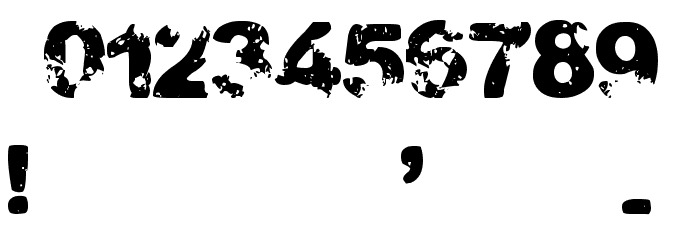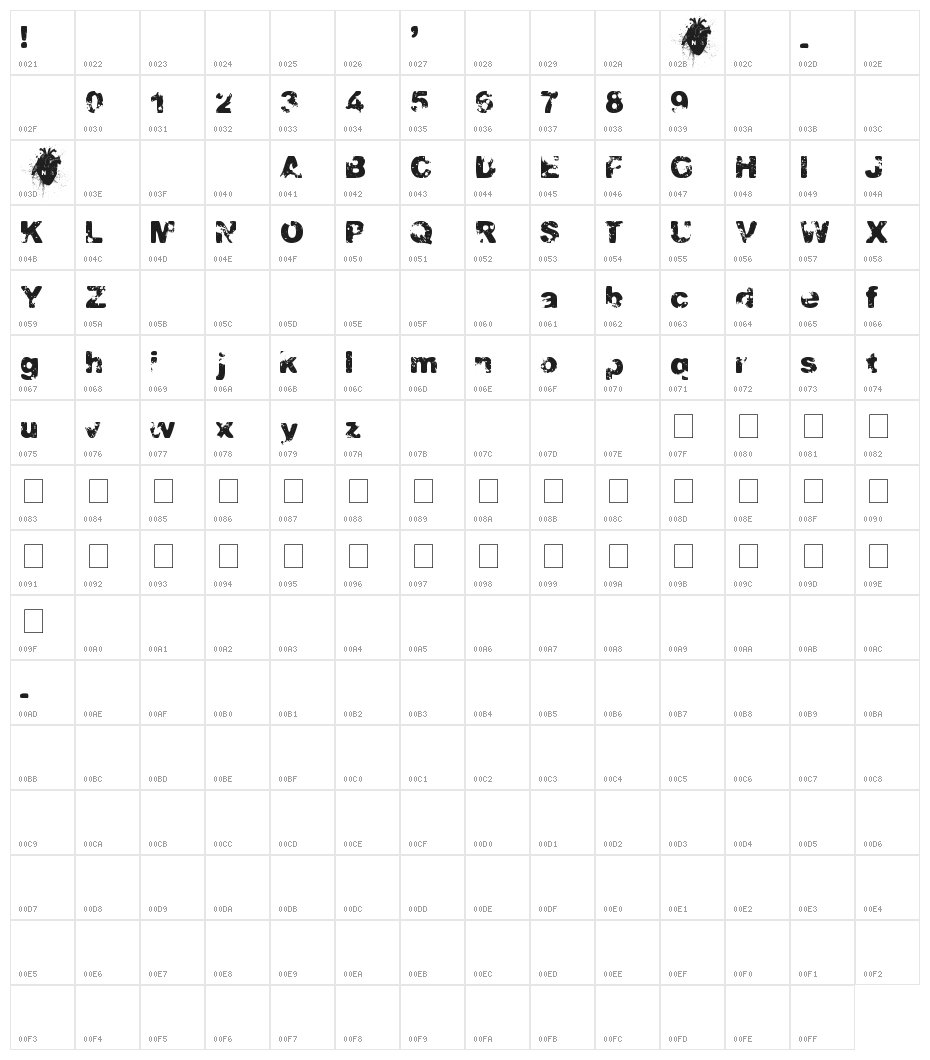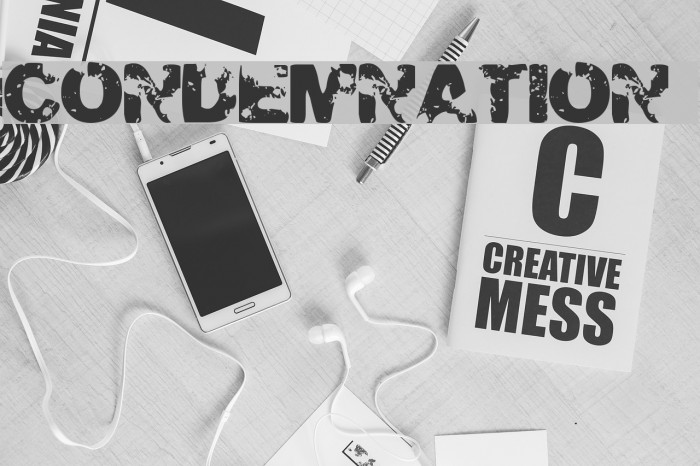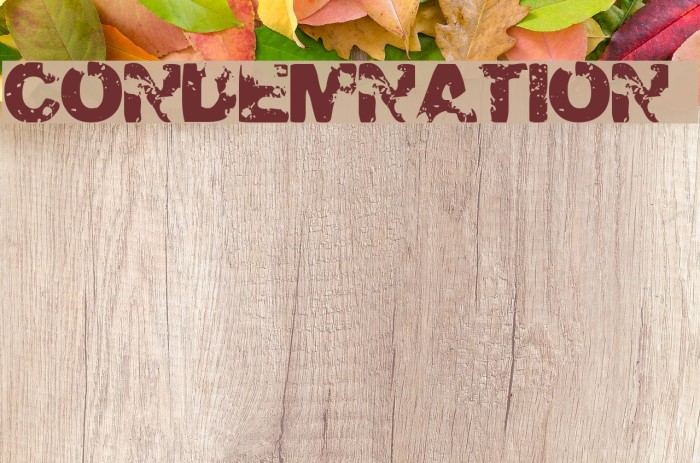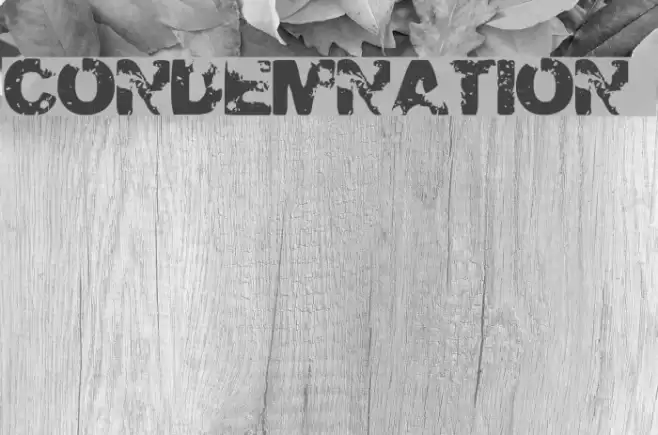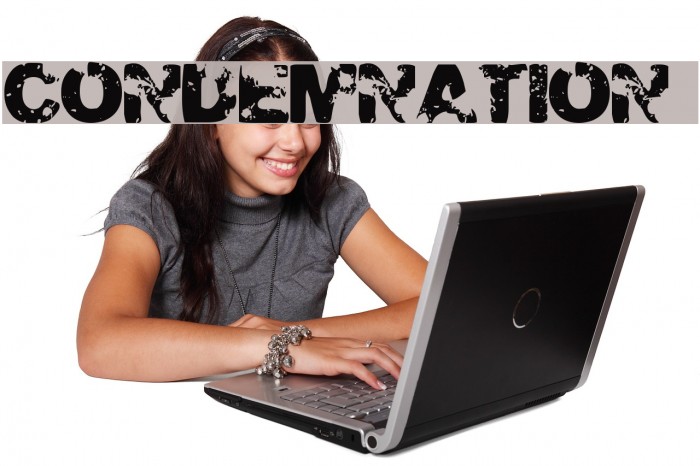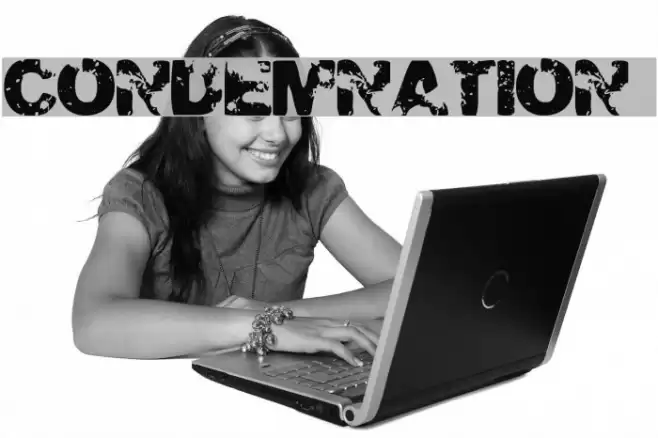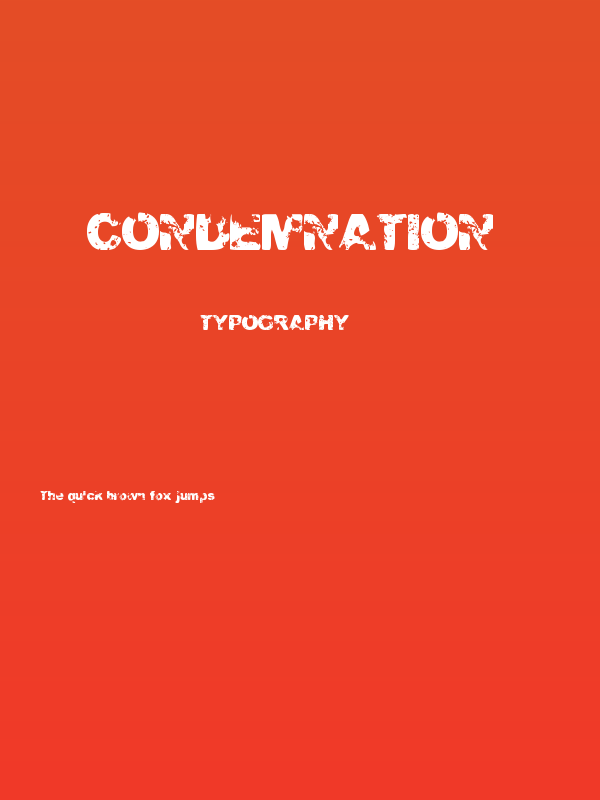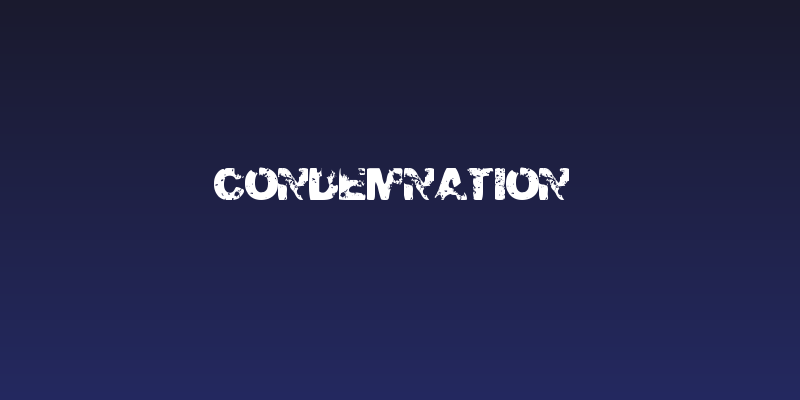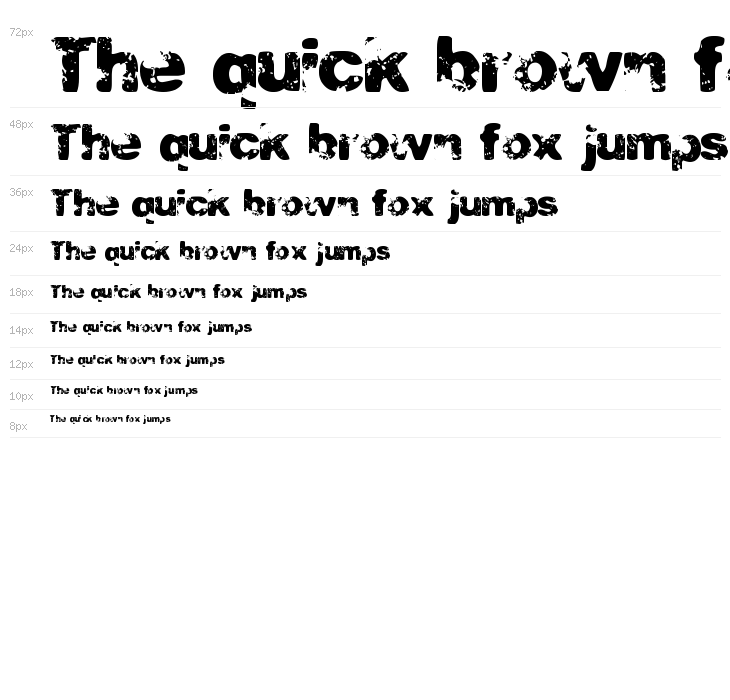
CONDEMNATION Font
CONDEMNATION Description
This font features a distressed and grunge style, characterized by its rough, textured appearance that gives it a worn and weathered look. The letters are bold and substantial, with irregular edges and a splattered effect that adds a sense of chaos and energy. This style is reminiscent of urban graffiti or vintage posters, making it ideal for projects that require a strong, impactful visual statement. The uppercase and lowercase letters maintain a consistent design, while the numerals and special characters carry the same distressed aesthetic, ensuring a cohesive look across all text elements.
Overall StyleGrunge, Urban
Proposed ProjectsIdeal for music album covers, event posters, streetwear branding, and edgy graphic designs.